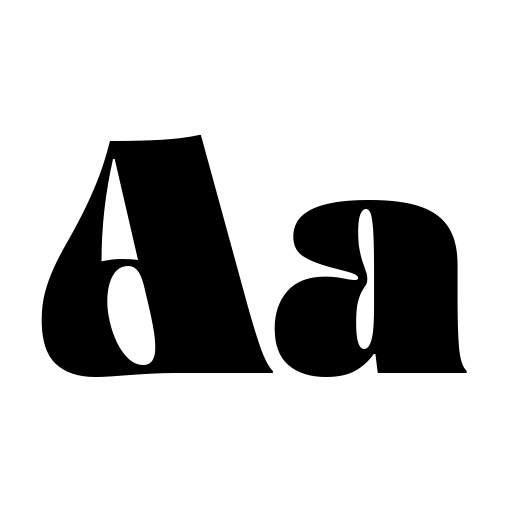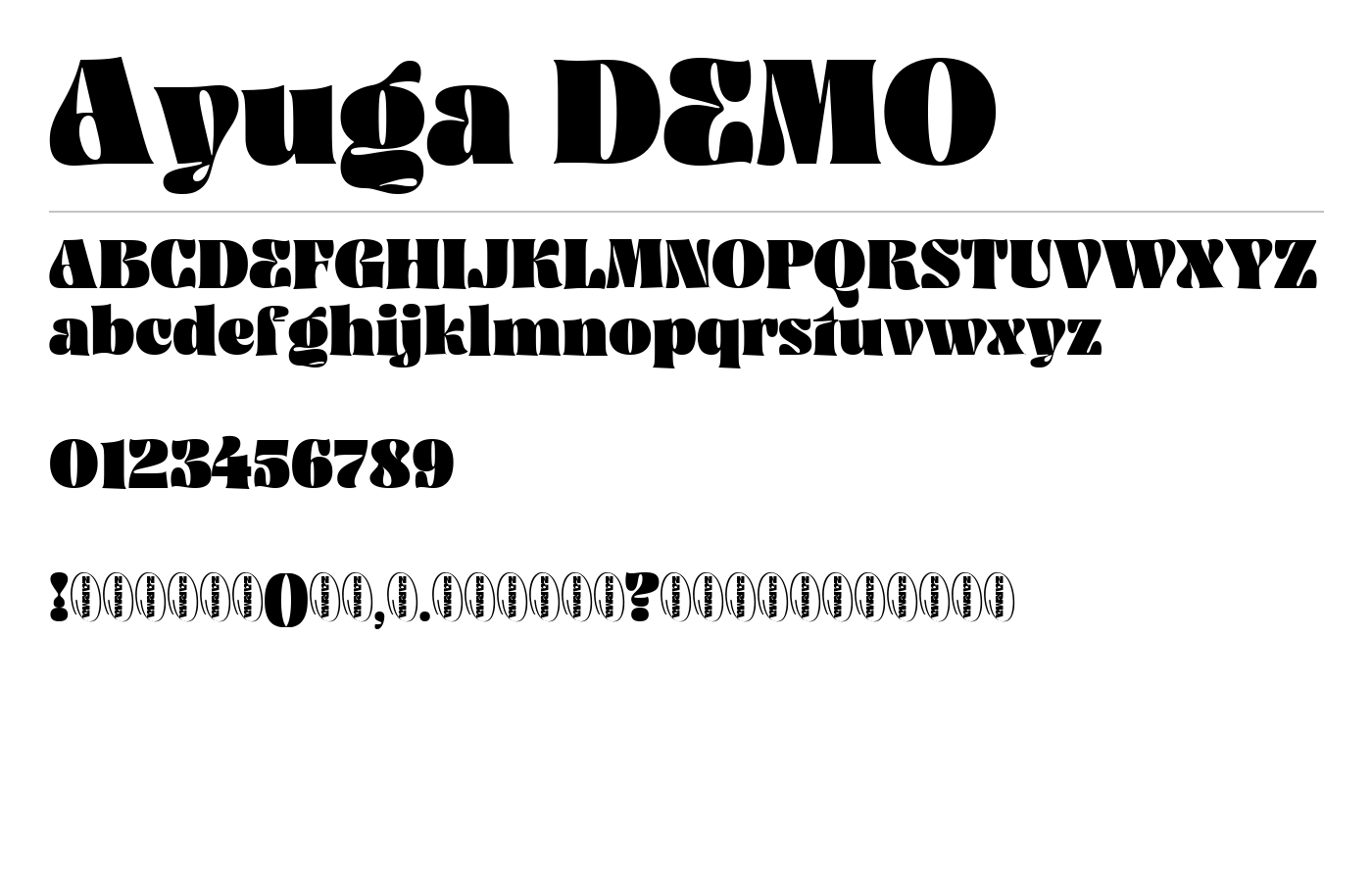
Ayuga DEMO is a bold, decorative serif font with a strong contrast between thick and thin strokes, featuring unique, playful letterforms that bring a vintage yet quirky charm. Its condensed width and high-impact shapes make it ideal for eye-catching headlines, logos, and packaging that seek to convey creativity and bold personality. This font works especially well in fashion or artistic branding where a distinctive and stylish impression is desired.
Ayuga DEMO Font
About Ayuga DEMO Font
| Font family | Ayuga DEMO Font |
| Designer | Azzam Ridhamalik |